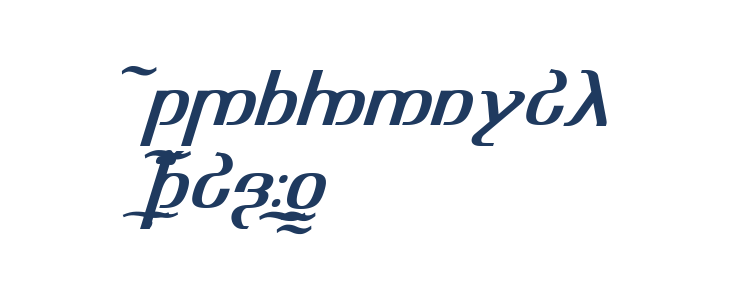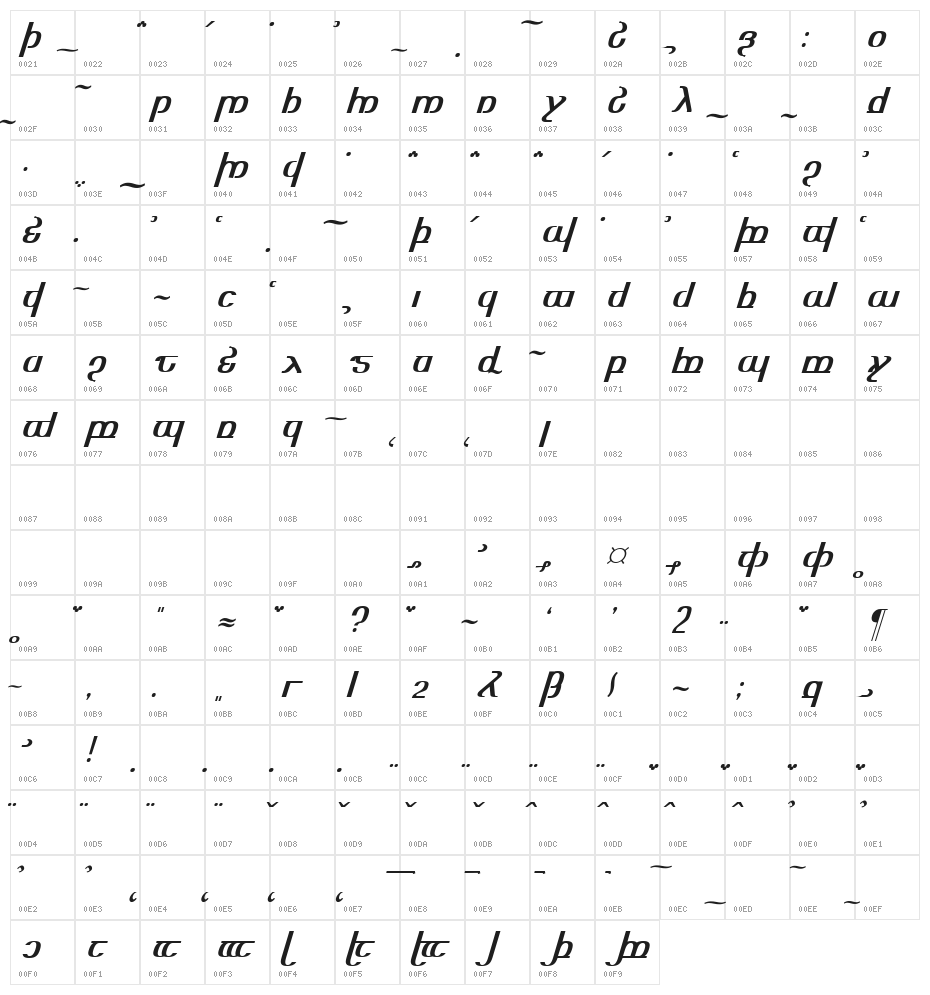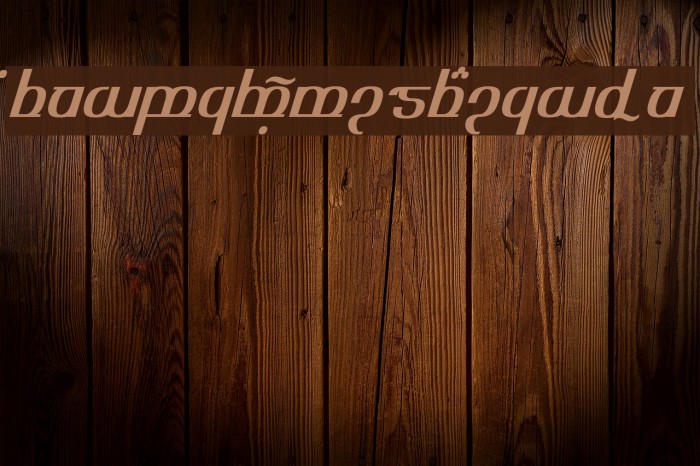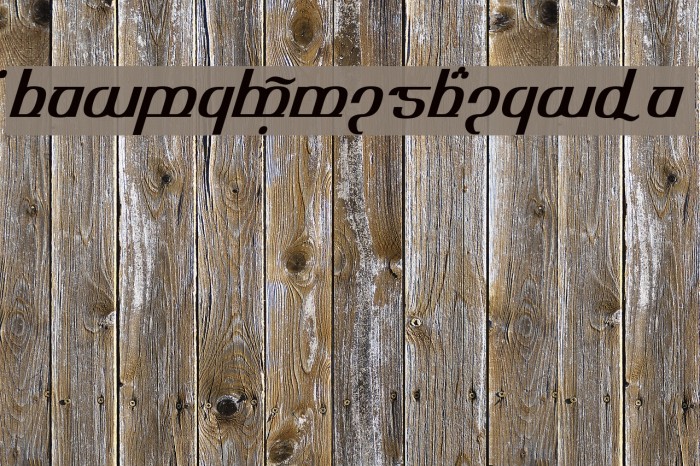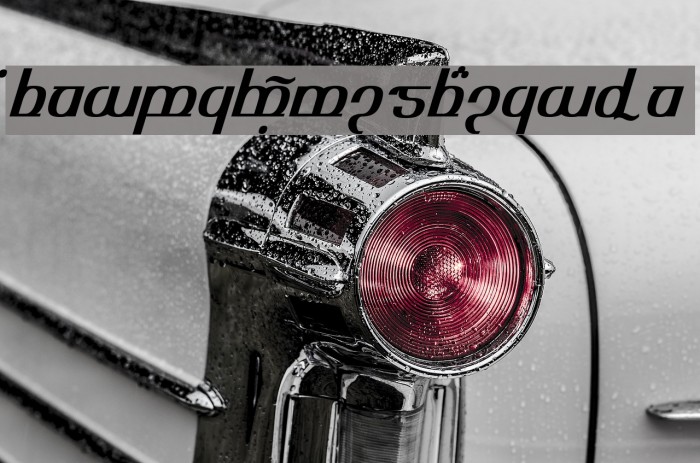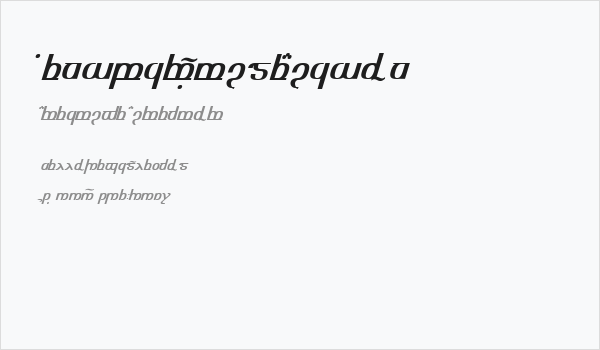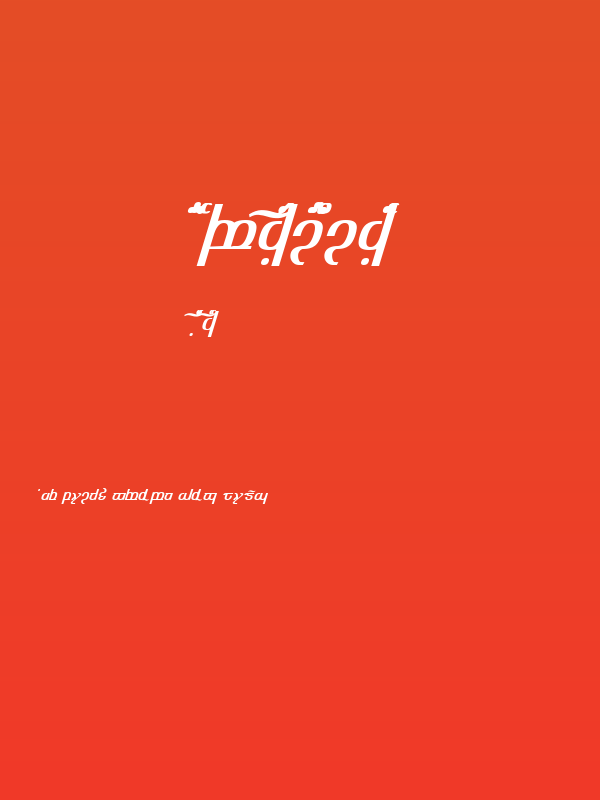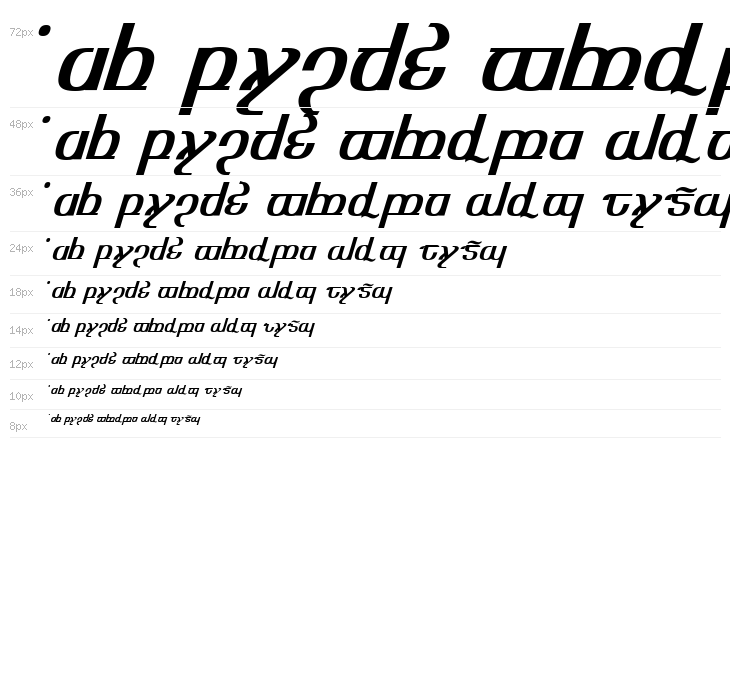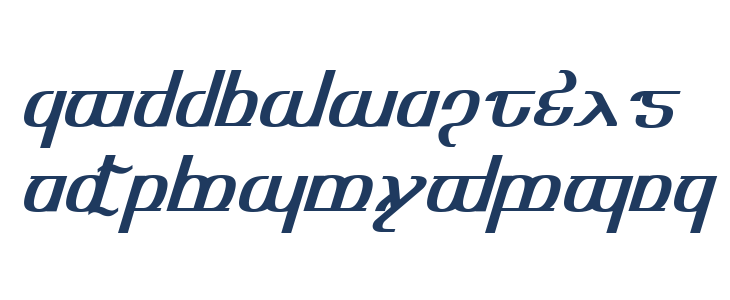
TengwarOptimeDiagon Font
TengwarOptimeDiagon Description
This font features a unique and decorative style inspired by the Tengwar script, often associated with fantasy and elvish languages. The characters are elegantly curved with distinct diagonal lines and flourishes, giving it an ornate and mystical appearance. The uppercase and lowercase letters maintain a consistent thematic style, with intricate details that suggest a hand-drawn quality. The numerals and special characters are equally stylized, contributing to the overall cohesive look of the font. This design is particularly suited for creative projects that aim to evoke a sense of fantasy or historical depth.
| Use Case | Logos, Titles, Creative projects |
| Proposed Projects | Ideal for fantasy-themed projects, book covers, game titles, or any creative work requiring an elvish or mystical aesthetic. |